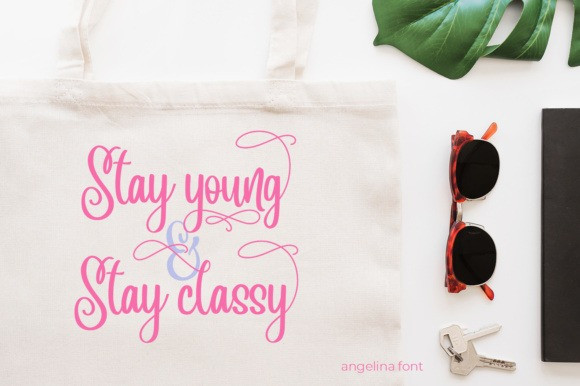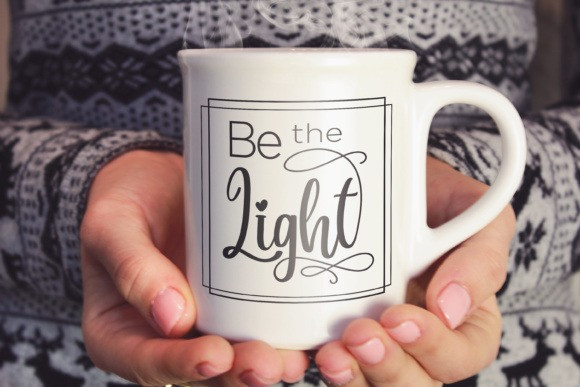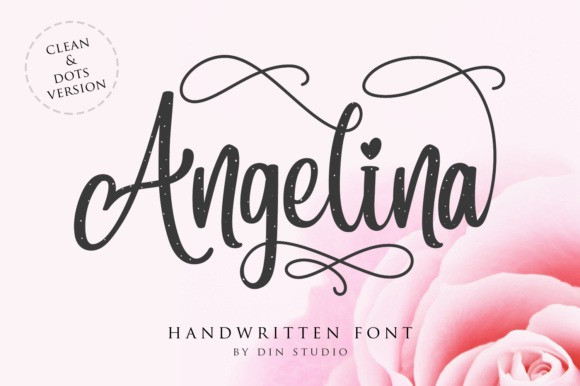
Angelina Moder Font
Angelina Moder Font is a playful, stunning script that allows you to add a personal touch to your designs in seconds. Please download and enjoy, thank you, and don’t forget to check out our other products.